Nothing says sophistication quite like the perfect typeface. Elegant typefaces are more than just pretty letters – they’re a signal of taste, intention, and brand identity. Whether you’re designing a high-end logo, revamping your business card or elevating your Instagram visuals, using classy fonts can transform your message from average to aspirational.
In this guide, we’re breaking down the most elegant fonts across styles – from luxury serif classics to stylish cursive fonts dripping with personality. We’ll also answer some burning questions like “What is the most elegant font?” and “What font is used for luxury?” Plus, we’ll show you how to explore these fonts hands-on using Picsart’s creative tools.
Elegant serif fonts: the timeless foundation of class
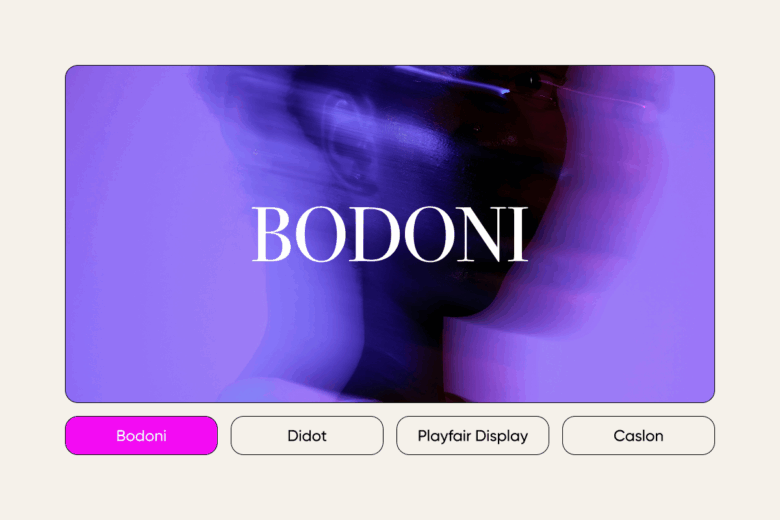
Serif fonts are the go-to for luxury branding. Their fine details and sharp contrast give them a polished, authoritative edge – perfect for brands that want to project trust and refinement.
Garamond
This classic font family is one of the most elegant typefaces of all time. It’s easy to read, historically rich, and endlessly versatile. Use it for upscale editorial design or high-end branding.
Bodoni
With bold contrast and clean vertical stress, Bodoni brings a modern twist to traditional serifs. It’s often seen in fashion magazines for a reason – it screams luxury and confidence.
Didot
Frequently used by brands like Giorgio Armani, Didot is considered the gold standard of fashion typography. It’s what many would argue is the answer to “What font is used for luxury?”
Playfair Display
A modern take on transitional serifs, Playfair Display pairs perfectly with sans-serifs for editorial layouts or upscale websites. It’s equal parts traditional and trend-aware.
Caslon
Rich with history and warmth, Caslon is ideal for brands that want to evoke heritage and craftsmanship. Think boutique hotels or artisan food labels.
Modern sans-serifs: elegance in minimalism
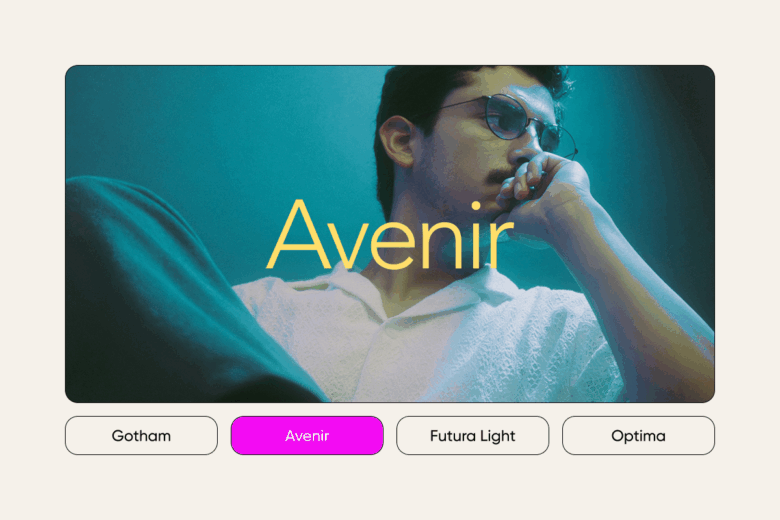
Sans-serif fonts prove that you don’t need ornate flourishes to radiate sophistication. When done right, these minimalist fonts create a sleek, contemporary aesthetic.
Helvetica Neue Light
This might just be the most attractive text font for designers who favor clarity and precision. It’s used in everything from Apple’s UI to art galleries.
Futura Light
Geometric, modern and always stylish. Futura Light brings a futuristic polish to logos and fashion layouts alike.
Avenir
With perfectly balanced proportions, Avenir is both approachable and professional – ideal for high-end tech, wellness, or creative brands.
Gotham
Clean, bold, and confident, Gotham’s appeal lies in its versatility. It’s the go-to for contemporary brands looking to project power without arrogance.
Optima
Combining the structure of a serif with the clarity of a sans-serif, Optima is fluid, legible, and subtly stylish. It’s a favorite in beauty and health branding.
Cursive and calligraphy fonts: romance and luxury in every curve
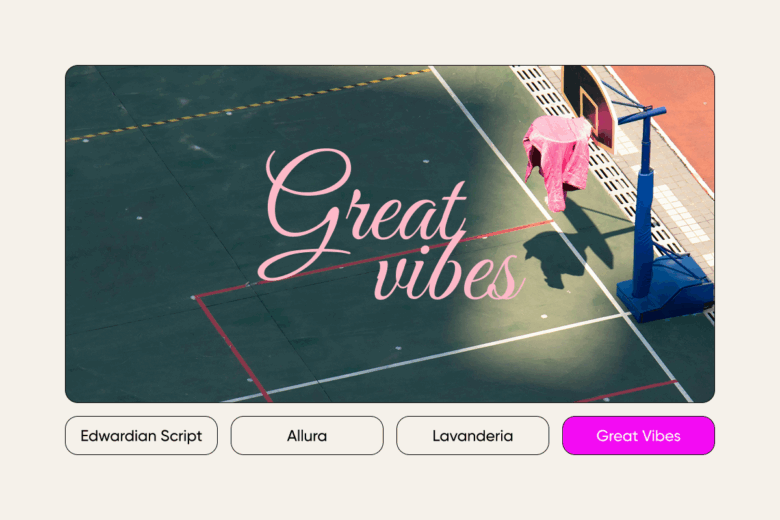
Looking for a stylish cursive font that adds emotion and elegance? Script fonts are perfect for invitations, branding, and social media designs that need a personal, elevated touch.
Bickham Script Pro
Highly ornate and ideal for formal events, Bickham Script is what you’d expect on a royal wedding invitation.
Edwardian Script
Smooth and refined, this elegant cursive font brings classic elegance to business cards, greeting cards and product packaging.
Great Vibes
This free-flowing script font is both legible and luxurious – perfect for lifestyle brands and wedding content.
Allura
Soft, balanced, and beautifully simple, Allura fits projects that need warmth with a refined finish.
Lavanderia
Based on sign painting, Lavanderia has chic loops and a fashion-forward vibe that makes it a hit on beauty or clothing brands.
Minimalist elegance: fonts that whisper instead of shout
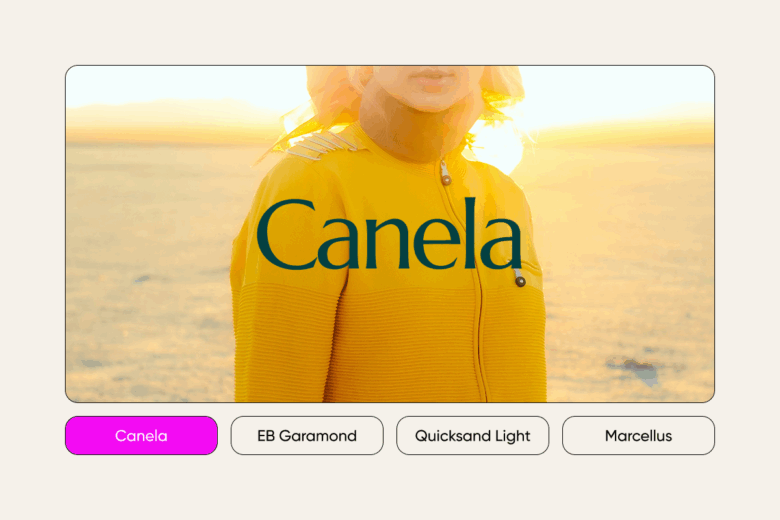
Sometimes, the most elegant font is the one that doesn’t beg for attention. These minimalist fonts offer subtle luxury and clean sophistication.
Cormorant Garamond
This artistic revival of a classic typeface offers more drama and flourish while staying legible. It’s a fantastic choice for elegant branding.
EB Garamond
If you love vintage fonts with a touch of digital precision, EB Garamond hits the sweet spot of nostalgic elegance.
Canela
This soft serif has an editorial feel and is ideal for luxury magazines or fashion websites.
Quicksand Light
Rounded and modern, this font exudes calm sophistication. It’s a solid choice for tech, design or wellness content.
Marcellus
Inspired by Roman letterforms, Marcellus adds a dignified tone to any headline or logo.
So, what is the most elegant font?